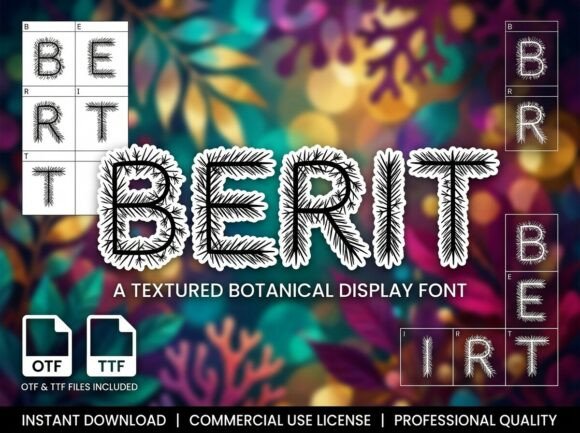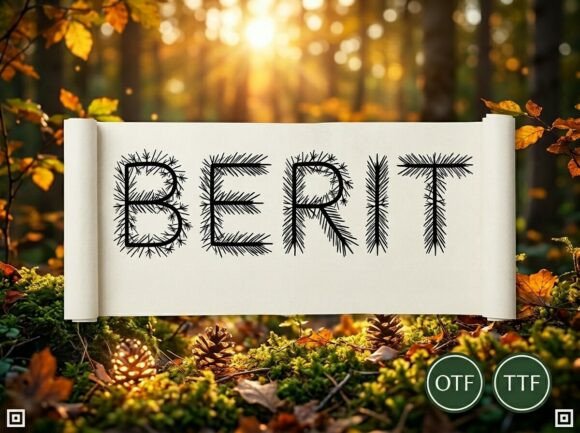
Discover Berit Font: The Ultimate Typeface for Rustic yet Refined Designs
Are you a designer or crafter looking for a font that embodies the essence of the great outdoors? Look no further than Berit Font, a tactile display typeface that captures the “wild-and-wintery” soul of the natural world. With its bold, architectural letterforms and intricate internal texture, Berit is the perfect choice for creating unique and eye-catching designs that evoke the rustic charm of the mountains.
The Inspiration Behind Berit Font
Berit Font is inspired by the intersection of botanical illustration and modern rustic branding. Its creator sought to craft a typeface that would bridge the gap between the organic, hand-drawn feel of traditional illustration and the bold, structural aesthetic of modern design. The result is a font that is both rugged and refined, with a unique personality that sets it apart from more traditional typefaces.
What Makes Berit Font So Unique?
Berit Font features a number of distinctive characteristics that make it stand out from other typefaces. Its bold, architectural letterforms are uniquely characterized by an intricate internal texture of rhythmic, hand-drawn “pine needle” sprigs and evergreen branches. This texture gives the font a tactile, organic feel that is reminiscent of natural materials like wood and stone.
The Benefits of Using Berit Font
So why choose Berit Font for your next design project? Here are just a few benefits of using this versatile and visually striking typeface:
- Rustic yet refined: Berit Font offers a unique blend of rugged, natural charm and refined, modern aesthetic. This makes it perfect for designers and crafters who want to create designs that are both earthy and sophisticated.
- High-impact visibility: With its bold, structural weight and intricate internal texture, Berit Font is designed to grab attention and make a lasting impression. This makes it ideal for use in high-impact applications like social media headers, logos, and branding materials.
- Versatility: Berit Font is a highly versatile typeface that can be used in a wide range of design applications, from independent mountain lodge identities and boutique Christmas greenery logos to eco-friendly apothecary labels and more.
Who is Berit Font For?
Berit Font is perfect for designers and crafters who want to create unique and eye-catching designs that evoke the natural world. This includes:
- Outdoor enthusiasts: If you love the great outdoors and want to create designs that reflect your passion for nature, Berit Font is a great choice.
- Eco-friendly brands: Berit Font’s natural, organic aesthetic makes it a great fit for eco-friendly brands and businesses that want to emphasize their commitment to sustainability.
- Holiday-themed designs: With its wintery, evergreen-inspired aesthetic, Berit Font is a great choice for holiday-themed designs, from Christmas cards and decorations to winter-themed logos and branding materials.
How to Use Berit Font in Your Designs
Berit Font is easy to use and can be incorporated into a wide range of design applications. Here are a few tips for getting the most out of this versatile typeface:
- Experiment with different sizes: Berit Font looks great in a variety of sizes, from large, bold headers to smaller, more intricate details.
- Pair with natural textures: Berit Font’s natural, organic aesthetic pairs perfectly with natural textures like wood, stone, and earthy fabrics.
- Play with color: Berit Font’s bold, structural weight and intricate internal texture make it a great fit for a wide range of colors, from earthy tones like green and brown to bold, bright hues like red and blue.
Berit Font is a unique and versatile typeface that offers a fresh take on rustic, natural design. With its bold, architectural letterforms and intricate internal texture, Berit is the perfect choice for designers and crafters who want to create eye-catching designs that evoke the great outdoors. Whether you’re looking to create independent mountain lodge identities, boutique Christmas greenery logos, eco-friendly apothecary labels, or high-impact social media headers, Berit Font is the premier choice for adding a touch of natural elegance to your designs.